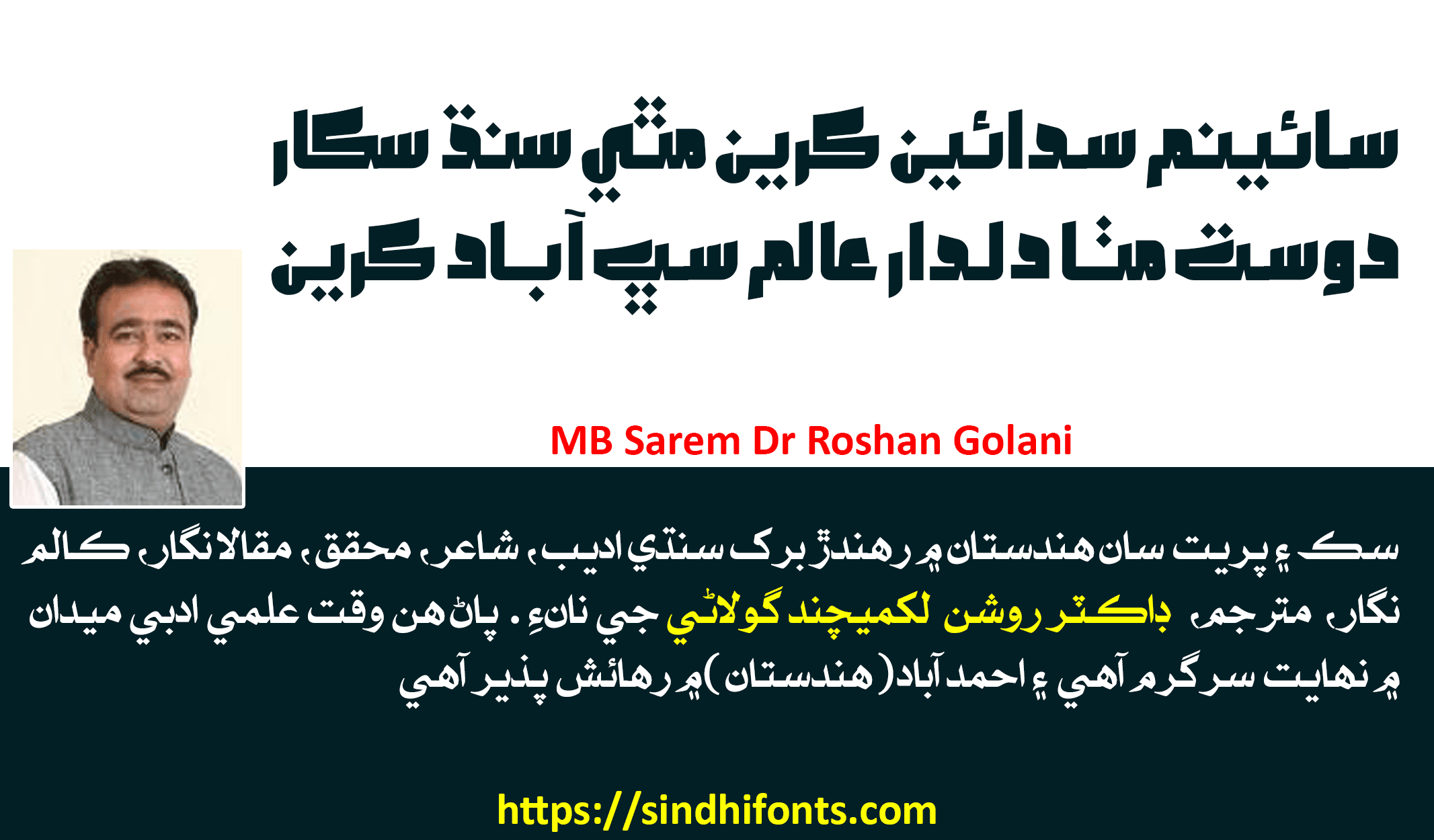
MB Sarem Dr Roshan Golani
Here is my new true type font (.TTF) MB Sarem Dr Roshan Golani. MB Sarem Dr Roshan Golani 1.0 is a Sindhi Standard Font for your designs particularly for the headings. It confirms the latest Unicode standards also. MB Sarem Dr Roshan Golani 1.0 is free of charge to download and install on your computer.